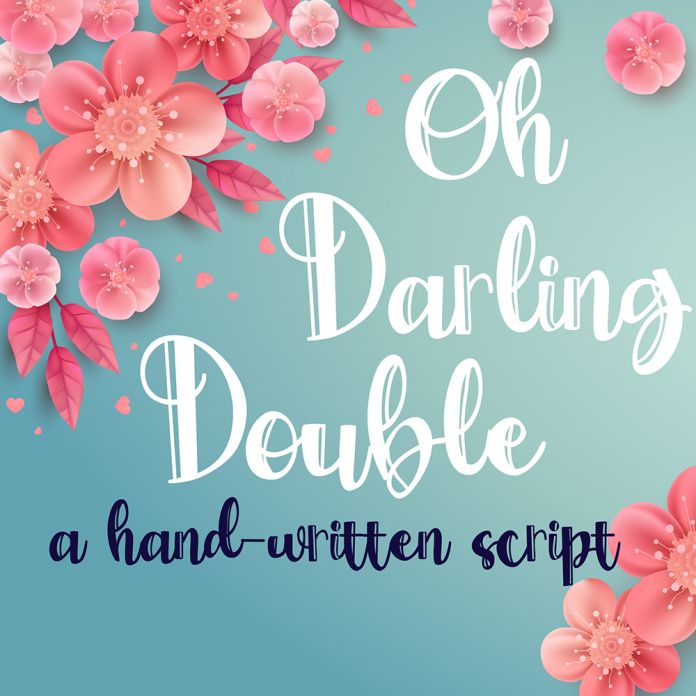
This hand-written font has three versions in this bundle. Bold, regular and double-lined. It is a beautiful script that is very formal. Hand-crafted fonts can be either formal or informal, and they can be used for a variety of purposes. Some of the characteristics of handwritten fonts include: The letters are not perfectly uniform in size or shape. There may be slight variations in the spacing between letters and words. The font may have a "wiggly" or "squiggly" appearance. The font may be difficult to read at small sizes. Handwritten fonts can be a great way to add a casual touch to your designs. They can also be used to create a sense of nostalgia or whimsy. However, it is important to choose a handwritten font that is appropriate for the project you are working on. A formal handwritten font may not be appropriate for a casual invitation, while an informal handwritten font may not be appropriate for a corporate document.